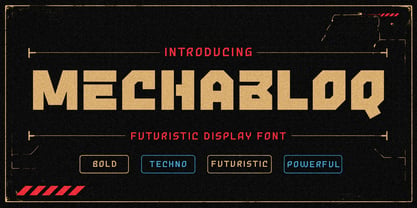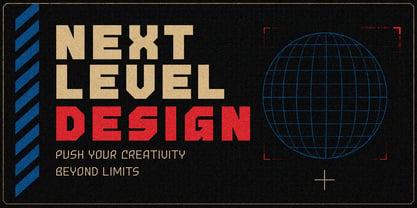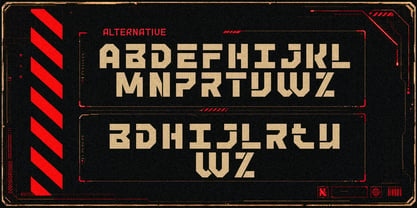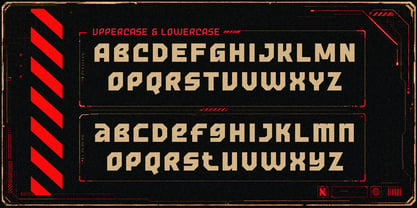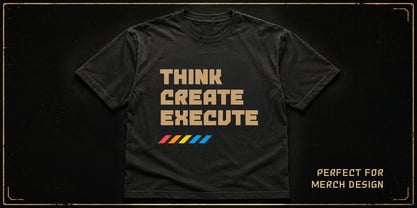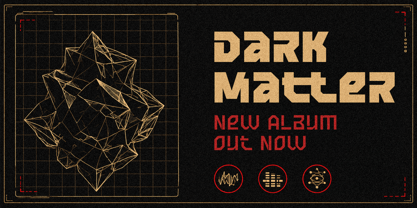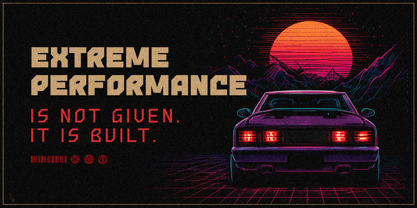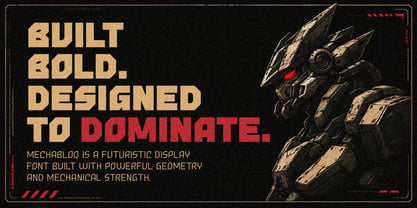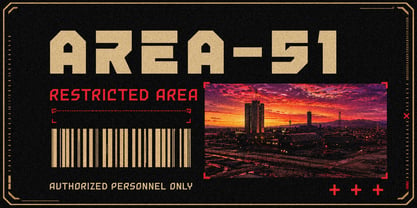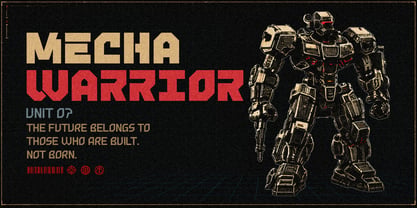
Mechabloq
Die Schriftfamilie Mechabloq wurde von Candi Erwanto entworfen und von MysticalType veröffentlicht. Mechabloq enthält 18 Stile und Familienpaketoptionen. Mehr über diese Familie
Mechabloq — Futuristic Tactical Display Typeface
Enter the world of futuristic warfare and cybernetic technology with Mechabloq, a powerful display typeface crafted by MysticalType. Inspired by military systems, industrial machinery, cyberpunk aesthetics, and sci-fi interface design, Mechabloq is built to deliver a bold visual impact with a strong futuristic identity. Featuring sharp angular cuts, heavy geometric construction, and modular letterforms, Mechabloq creates a mechanical and aggressive appearance that instantly stands out. Every character is designed with precision to evoke the feeling of tactical HUD interfaces, armored robotics, advanced technology, and dystopian future environments. The result is a typeface that feels modern, industrial, and unmistakably powerful. Mechabloq perfectly balances readability and personality, making it ideal for large headlines, logos, posters, and display typography. Its bold silhouette and techno-inspired structure make it especially suitable for projects related to gaming, esports, cyberpunk visuals, AI technology, robotics, automotive branding, stream overlays, album covers, apparel, and futuristic packaging. The font carries a dark industrial atmosphere with strong sci-fi energy, allowing designers to create visuals that feel immersive, cinematic, and high-tech. Whether you're building a futuristic brand identity or designing next-generation digital artwork, Mechabloq gives your project a commanding and unforgettable presence. Created for modern creators who want typography with attitude, Mechabloq is more than just a font — it is a futuristic visual system designed to dominate attention.
Perfect For
Gaming • Esports • Sci-Fi Posters • Tech Branding • Stream Overlay • YouTube Thumbnail • Apparel Design • Movie Title • Album Cover • Futuristic UI • Cyberpunk Projects
MysticalType is a design studio focused on creating unique and artistic digital fonts. Founded by Candi Erwanto, the studio transforms ideas into compelling visual designs with a special emphasis on typeface creation. The fonts they produce come in a variety of styles, ranging from retro, industrial, and decorative to modern and minimalist. Their font collection also includes advanced typographic features like kerning, ligatures, and alternates, making them an ideal choice for professional designers. MysticalType doesn't just sell products; they invite customers to turn their creative ideas into reality through design. This makes MysticalType a perfect choice for anyone looking for fonts that are not merely a tool but also possess character and a story.